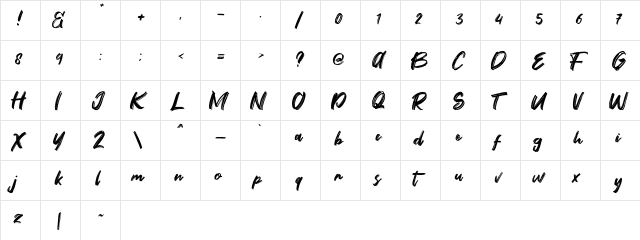
Fontbliz Regular
Design Context for Fontbliz Typeface
Fontbliz is a composed and adaptable typeface that performs quietly and consistently across a wide range of design contexts.